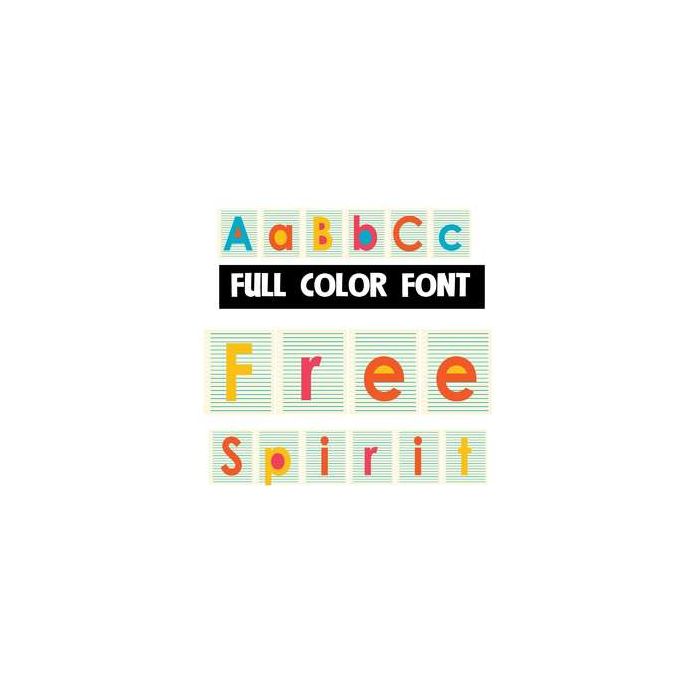
This full-color, sans serif font is a colorful, modern font placed on individual sheets of paper. This font works best for titles, displays, posters and more. Please note color fonts will show as black in non compatible programs. This font type is compatible with Silhouette Studio.